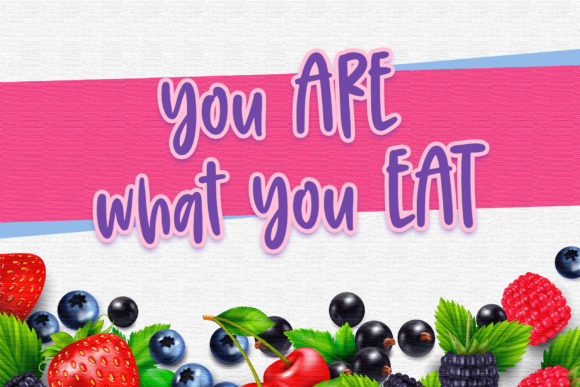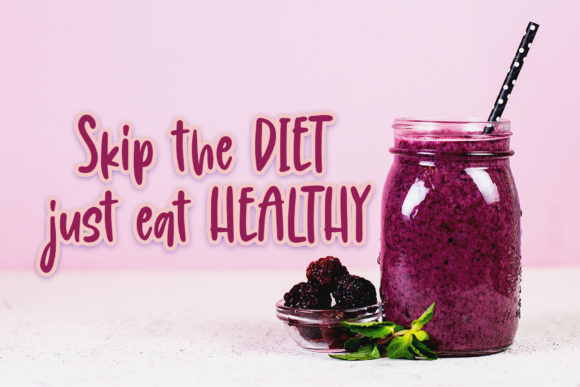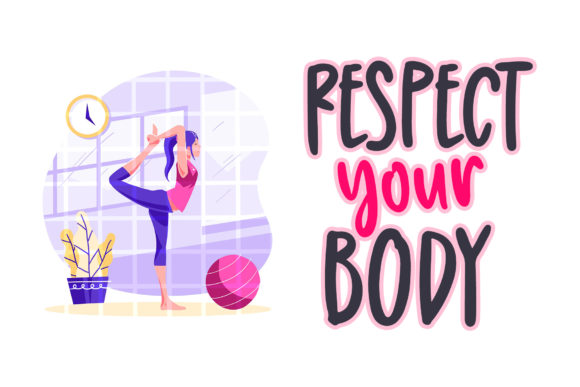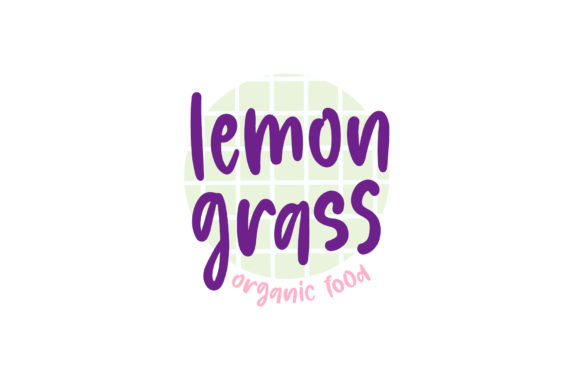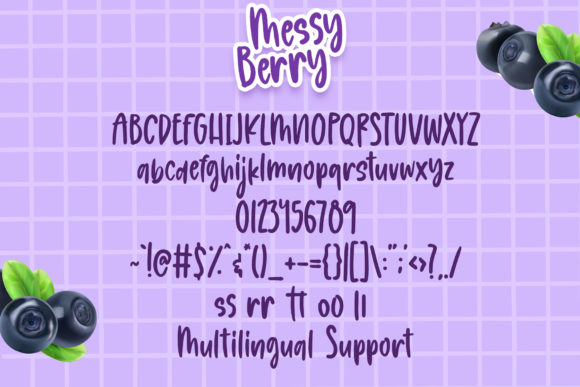
Introduction to Messy Berry Font
Have you ever been working on a design project, pouring your heart and soul into it, only to feel like something’s missing? That’s when I stumbled upon the Messy Berry Font, and everything changed. Its quirky, handwritten style is like a breath of fresh air, adding an instant touch of joy to any design. Whether you’re creating a beautiful piece of stationery art or crafting an eye-catching social media post, this font is sure to make your project stand out.
As a designer, you know how valuable a high-quality design resource can be. And that’s exactly what Messy Berry Font offers – a free download of a beautifully crafted font that’s perfect for any creative project. With its transparent background, you can easily combine it with other design elements to create a unique and eye-catching look.
With Messy Berry Font, the possibilities are endless. From weddings to birthday parties, and from social media posts to business cards, this font is sure to add a personal touch to any design. So why not give it a try and see how it can elevate your next creative project?
Key Features of Messy Berry Font
- Unique and playful design, perfect for creative projects and illustrations
- High-quality font with a transparent background, ideal for graphic design and digital art
- Designed with a high resolution of 300 DPI, ensuring crisp and clear text display
- Supports a wide range of languages, making it a versatile font for international projects
- Perfect for use in digital design, print media, and web development, thanks to its modern and creative aesthetic
Honest Review: Messy Berry Font
One of the standout features of the Messy Berry Font is its unique and playful style. ✨ It’s perfect for adding a touch of whimsy to your designs, from social media graphics to branding materials. The font also comes with a transparent background, which makes it easy to use with any color or design.
Here are some of the key benefits of the Messy Berry Font:
- Unique and playful style
However, there are a few limitations to keep in mind: ⚠️ the font may not be suitable for formal or professional projects, and it may not be as versatile as some other fonts. Additionally, the font is quite bold, so it may not be the best choice for smaller text.
Overall, I’m really impressed with the Messy Berry Font. It’s a great addition to any designer’s toolkit, and I’d highly recommend it for any creative project that needs a touch of personality.
To get the most out of the Messy Berry Font, use it in combination with a transparent background to create a unique and eye-catching design. You can also experiment with different font sizes and colors to create a visually appealing effect.
The Messy Berry Font is perfect for creative projects such as invitations, social media graphics, and blog posts. Its high-quality design and transparent background make it ideal for use in a variety of applications.
Can I use the Messy Berry Font with a transparent background?
Yes, the Messy Berry Font is designed to be used with a transparent background, making it perfect for designers who want to create visually appealing designs with a clean and minimalist aesthetic. The font’s transparent background also allows designers to easily layer it over images or other design elements without any issues.